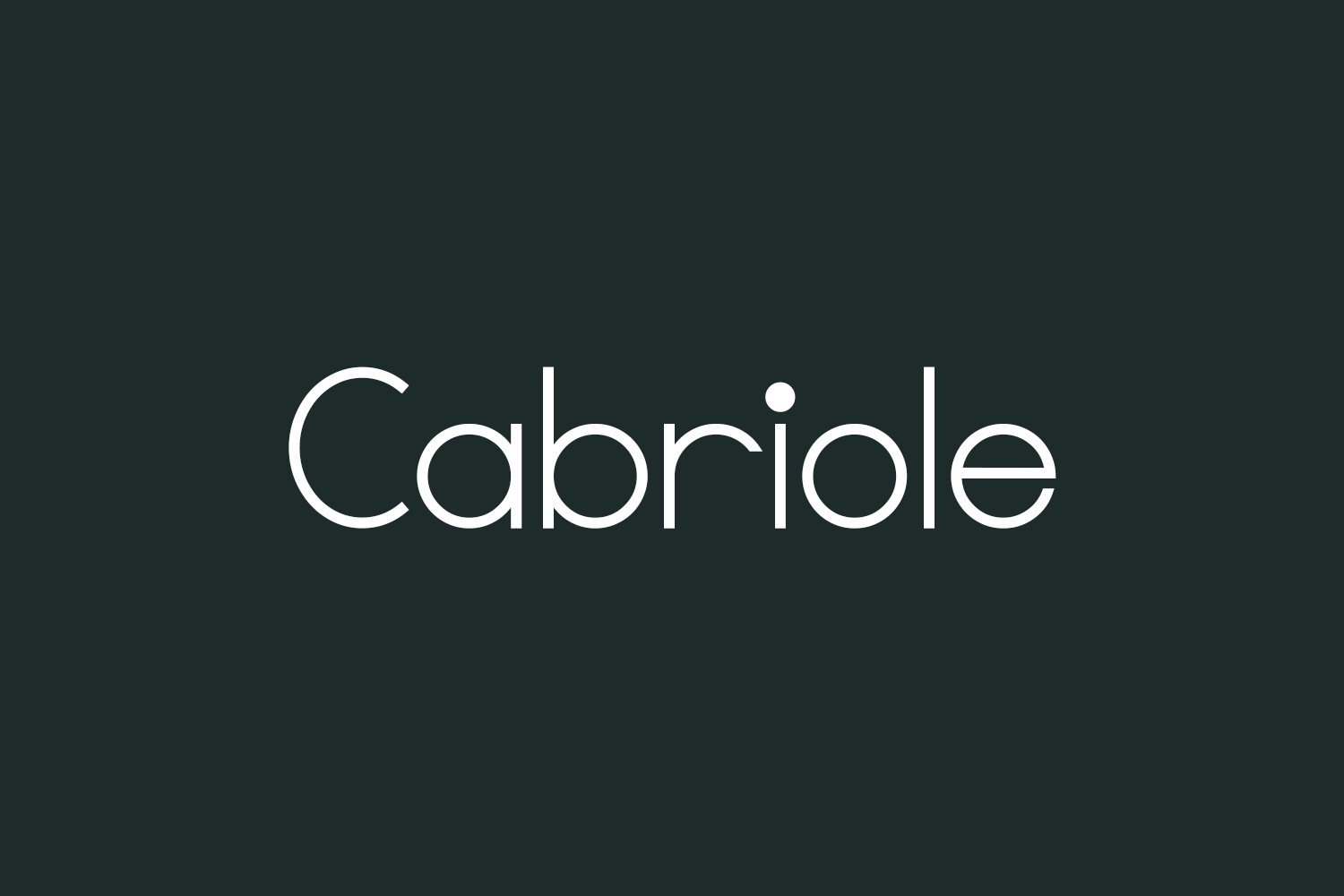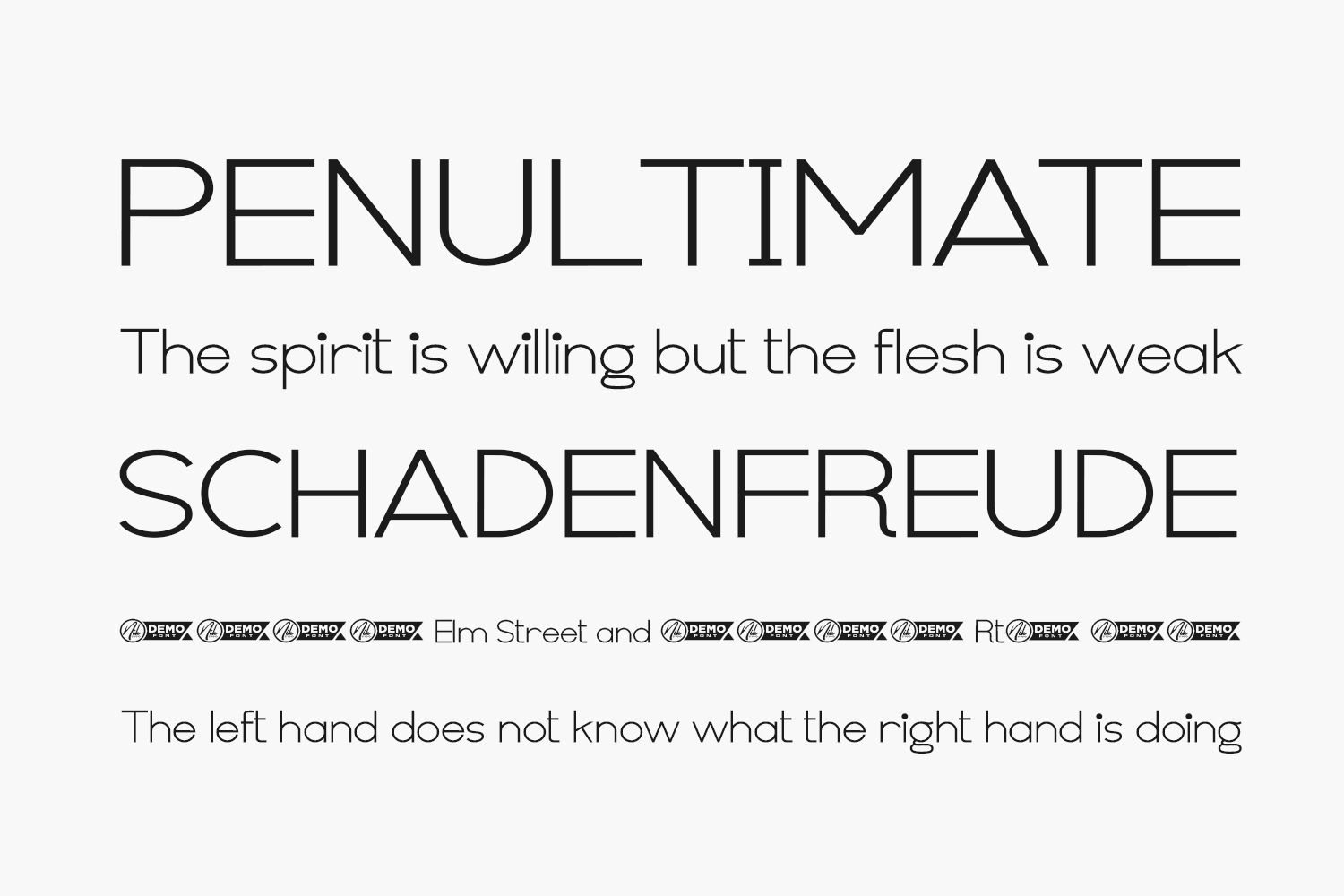
Cabriole Free Font Family presents a sleek and versatile sans serif font option. An invaluable addition to your font collection, it effortlessly enhances creations across various topics, ensuring a polished and professional finish every time. Download the font for free if you need it for personal use or purchase the full version for commercial use.